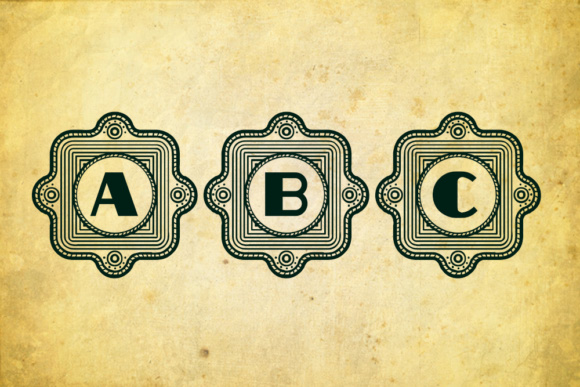
Unlocking the Power of Vintage Charm: Introducing Aafia Capitals Font
Remember that moment when you stumbled upon an old, forgotten book in your grandparents’ attic? The musty smell, the yellowed pages, and the intricate illustrations all combined to transport you to a bygone era. It’s moments like these that inspire designers to seek out fonts that evoke a sense of nostalgia and timelessness.
Aafia Capitals Font is a beautiful example of vintage flair, perfect for adding a touch of elegance to your headlines and banners. With its ornate details and classic feel, this font is sure to captivate your audience and leave a lasting impression. For designers looking to add some vintage charm to their work, Aafia Capitals Font is an invaluable asset.
- Font Family: Aafia Capitals, a modern and elegant font designed specifically for display purposes.
- Character Set: Includes a wide range of characters, including uppercase and lowercase letters, numerals, punctuation marks, and special characters.
- Unique Characteristics: Features a distinctive, refined design with subtle curves and lines, making it suitable for use in logos, titles, and headings.
A Designer’s Review of Aafia Capitals Font
As a designer, I’ve had the chance to work with Aafia Capitals Font, and I’m excited to share my honest review with you. ✨ One of the things that stands out about this font is its elegant and refined look. The capital letters are particularly beautiful, with intricate details that make them perfect for formal or luxurious designs. The font’s classic feel also makes it a great choice for historical or vintage-themed projects.
- ✨ Elegant and refined look, perfect for formal or luxurious designs
- ✨ Beautiful capital letters with intricate details
- ✨ Classic feel, great for historical or vintage-themed projects
However, there are a few limitations to consider. ⚠️ The font may not be suitable for body text, as it can be quite difficult to read at smaller font sizes. Additionally, the font’s intricate details may not render well on all devices or screens. Finally, the font’s classic feel may not be to everyone’s taste, and some designers may find it too ornate or over-the-top.
- ⚠️ May not be suitable for body text due to readability issues
- ⚠️ Intricate details may not render well on all devices or screens
- ⚠️ Classic feel may be too ornate or over-the-top for some designers
Overall, I think Aafia Capitals Font is a beautiful and elegant choice for designers who need a luxurious or formal look. However, it’s essential to be aware of its limitations and use it judiciously in your designs.
For best results, use Aafia Capitals Font for titles and headings, as it is designed to be bold and eye-catching. Use it for:
- Presentations and reports.
- Logo design and branding.
Alternatives to Aafia Capitals Font
Ostrich Sans is a modern sans-serif font that is highly legible and versatile. It is suitable for use in a wide range of applications, from body text to display headings. Ostrich Sans is a great alternative to Aafia Capitals Font because it has a similar clean and minimalist aesthetic, but with a more modern feel.
Comparison: Ostrich Sans is more condensed and has a slightly more geometric feel than Aafia Capitals Font, making it a good choice for applications where space is limited.
Playfair Display is a luxurious serif font that is perfect for use in high-end branding, advertising, and editorial design. It is a great choice for designers who want to add a touch of elegance and sophistication to their work. Playfair Display is a good alternative to Aafia Capitals Font because it has a similar classic feel, but with a more refined and sophisticated aesthetic.